Kobu Foundry
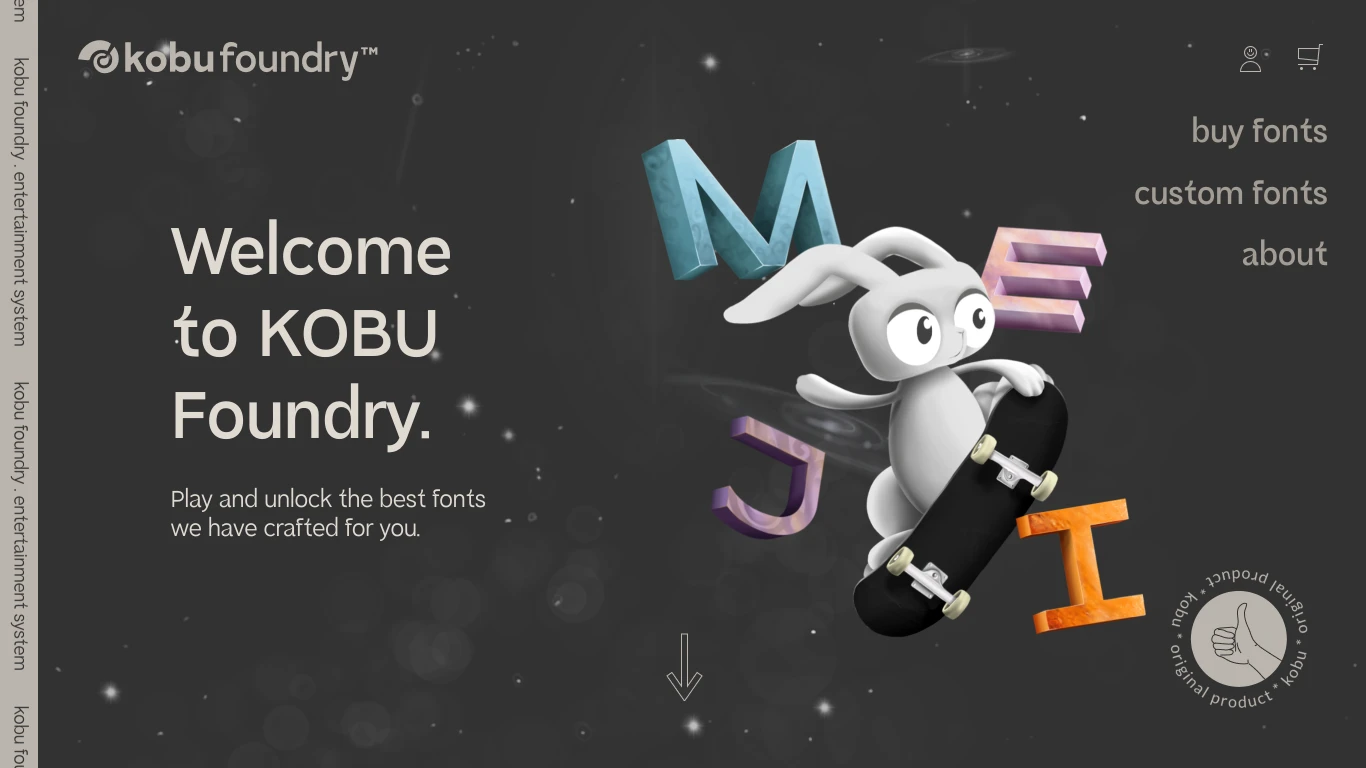
Portugal
KOBU Foundry is a Portuguese type foundry established in July 2019 by KOBU Agency, with type designer Brígida Guerreiro leading its creation. Integrating storytelling and interactive elements inspired by classic video games, KOBU Foundry brings a playful narrative approach to type design. Notable typefaces include Sakasu, Taiyo, and KOBU Text, each reflecting a distinct visual identity. The foundry’s website earned an Honorable Mention from Awwwards in April 2020.